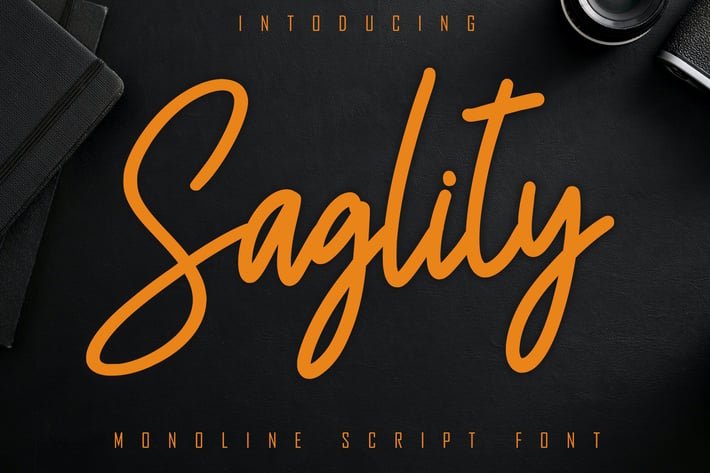
Saglity Monoline Script Font
Saglity is a monoline type font combined with a script so it looks elegant, there are ligature features in it, suitable to support a variety of designs and your business